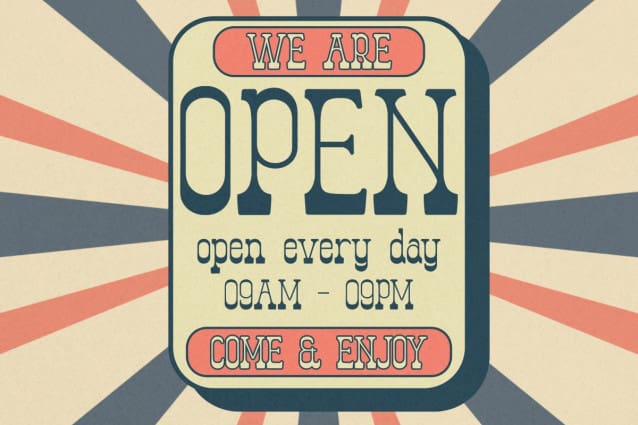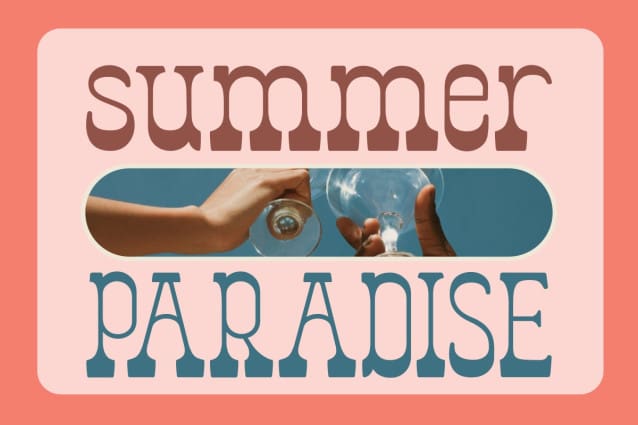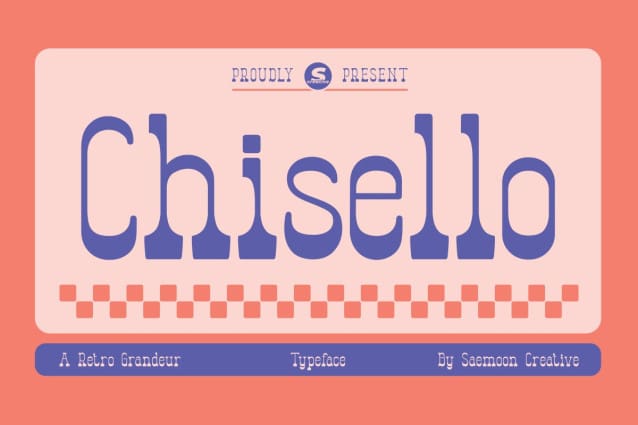
Chisello Font
Chisello Font is a retro serif font crafted with deep passion and dedication to the art of typography. Featuring bold, captivating serifs, a sleek body, and symmetrical curves that exude elegance, Chisello seamlessly blends timeless classic charm with a touch of modern sophistication. This font is designed to bring a luxurious and professional feel to your projects, making it the perfect choice for branding, posters, editorials, or any creative work that demands attention and leaves a lasting impression. Let Chisello be the key element that brings your creative vision to life with unforgettable style